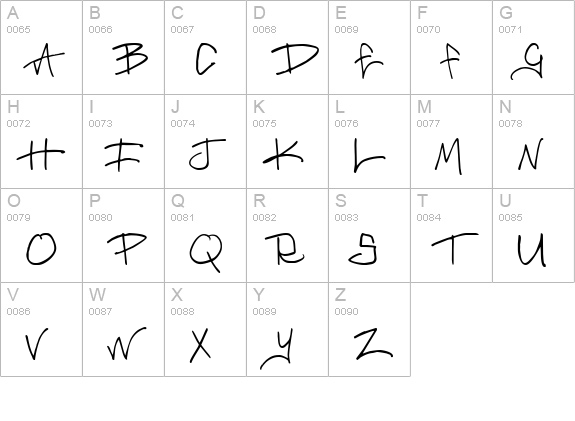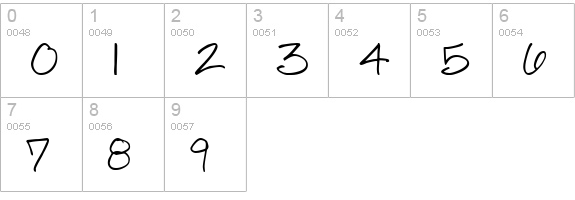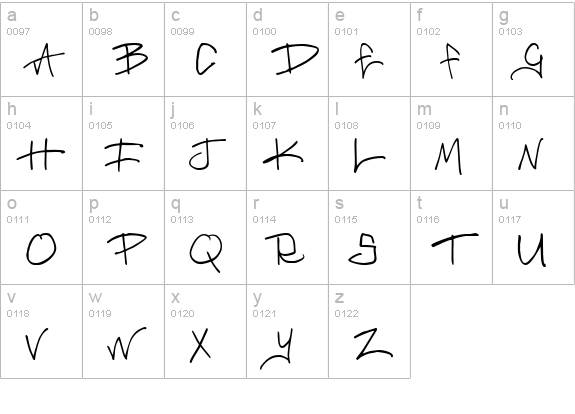
The Brass Monkey font is a stylish and versatile typeface that exudes a sense of sophistication and elegance. With its sleek lines and modern aesthetic, this font is perfect for a wide range of design projects, from branding to editorial design. The Brass Monkey font is available for free download at FontsMarket.com, making it accessible to designers and creatives looking to add a touch of refinement to their work. Whether you're working on a logo, website, or print materials, the Brass Monkey font is sure to make a lasting impression with its timeless appeal and effortless charm.